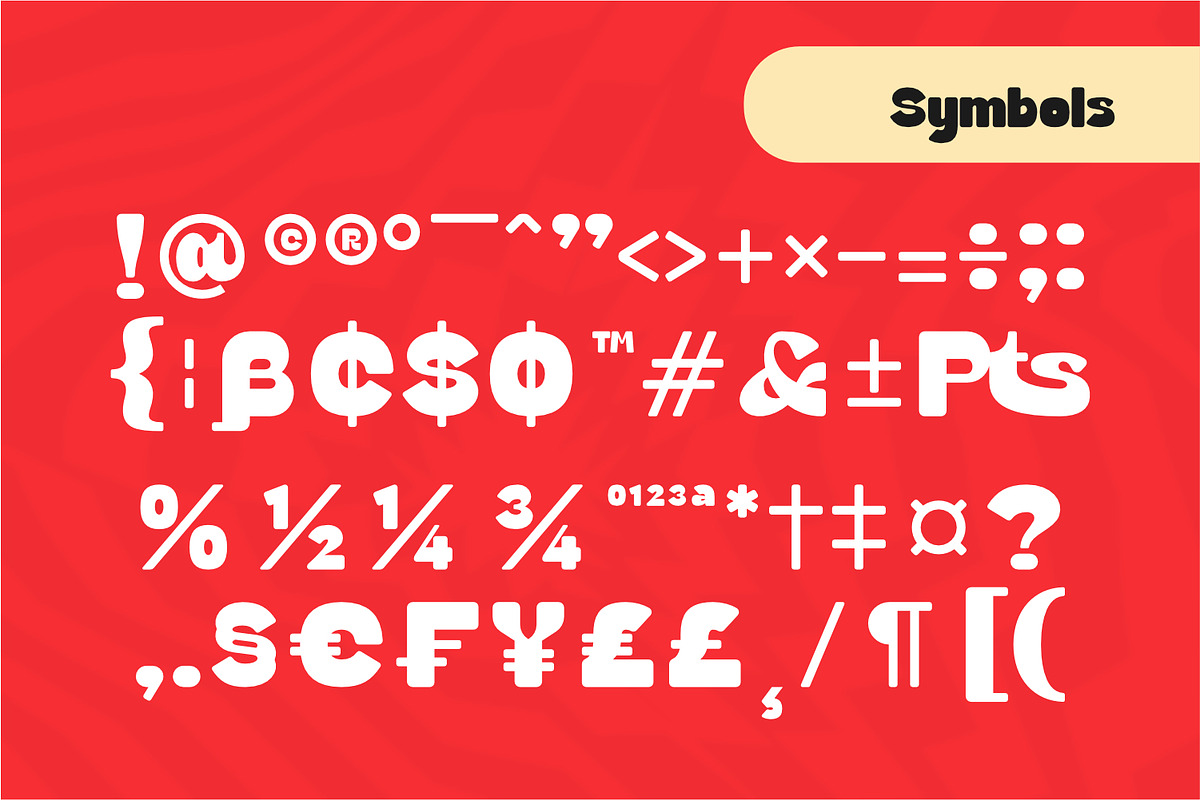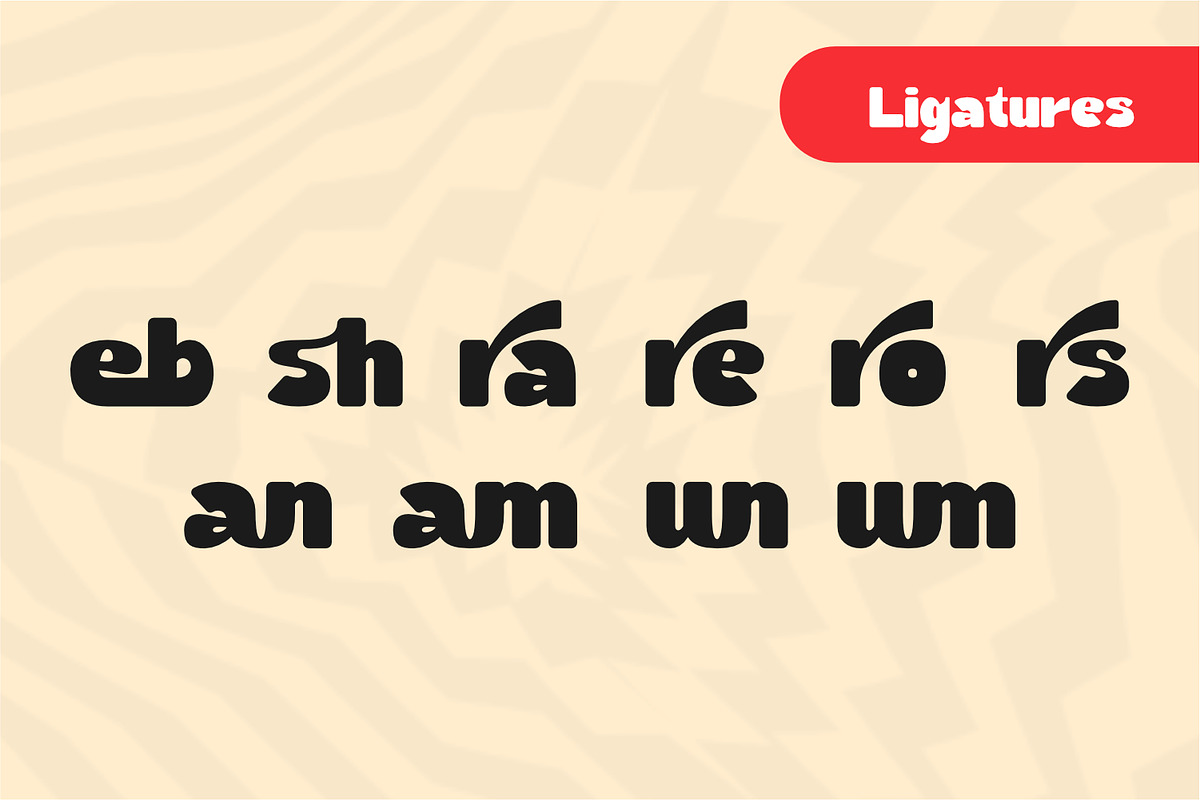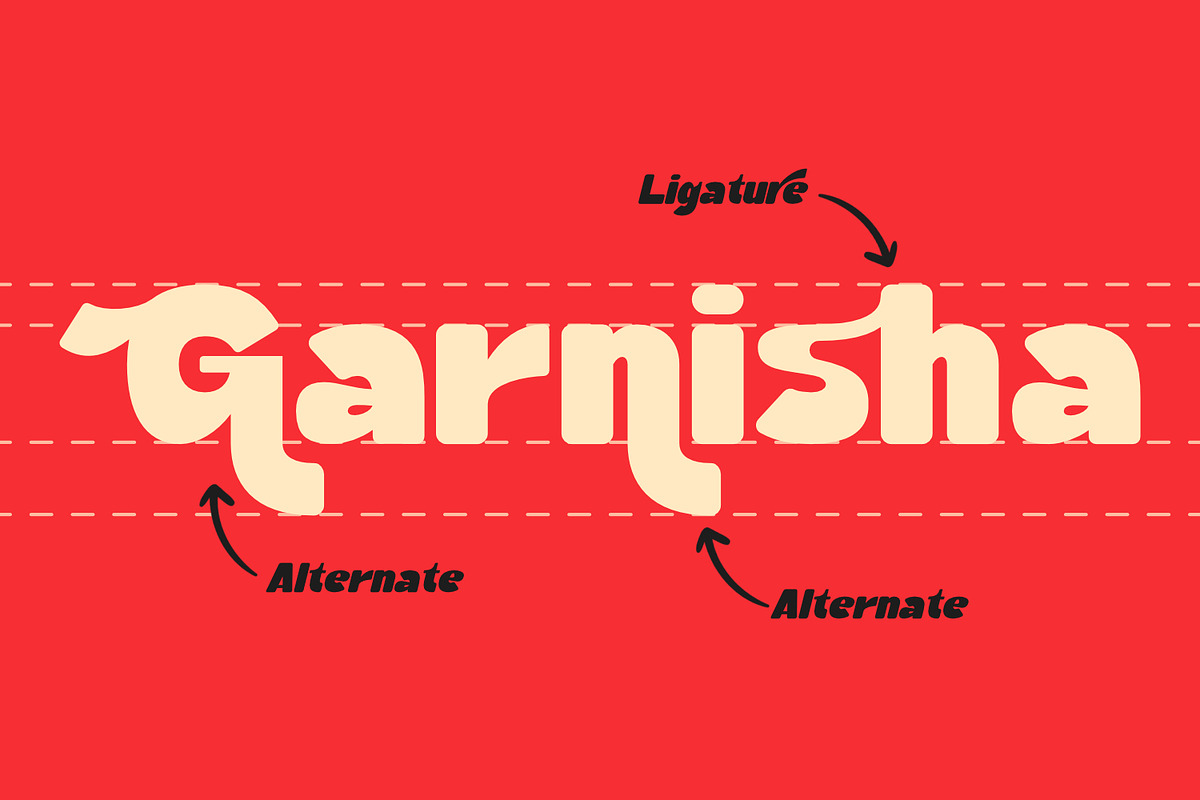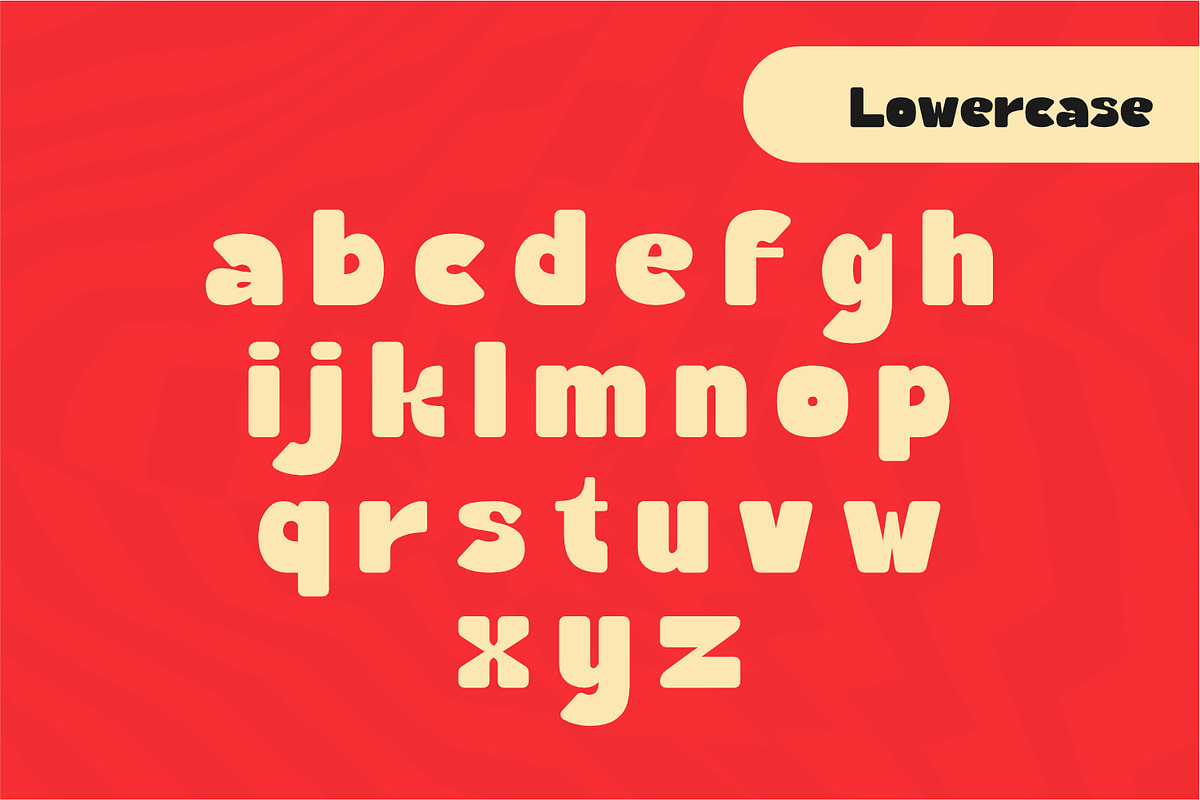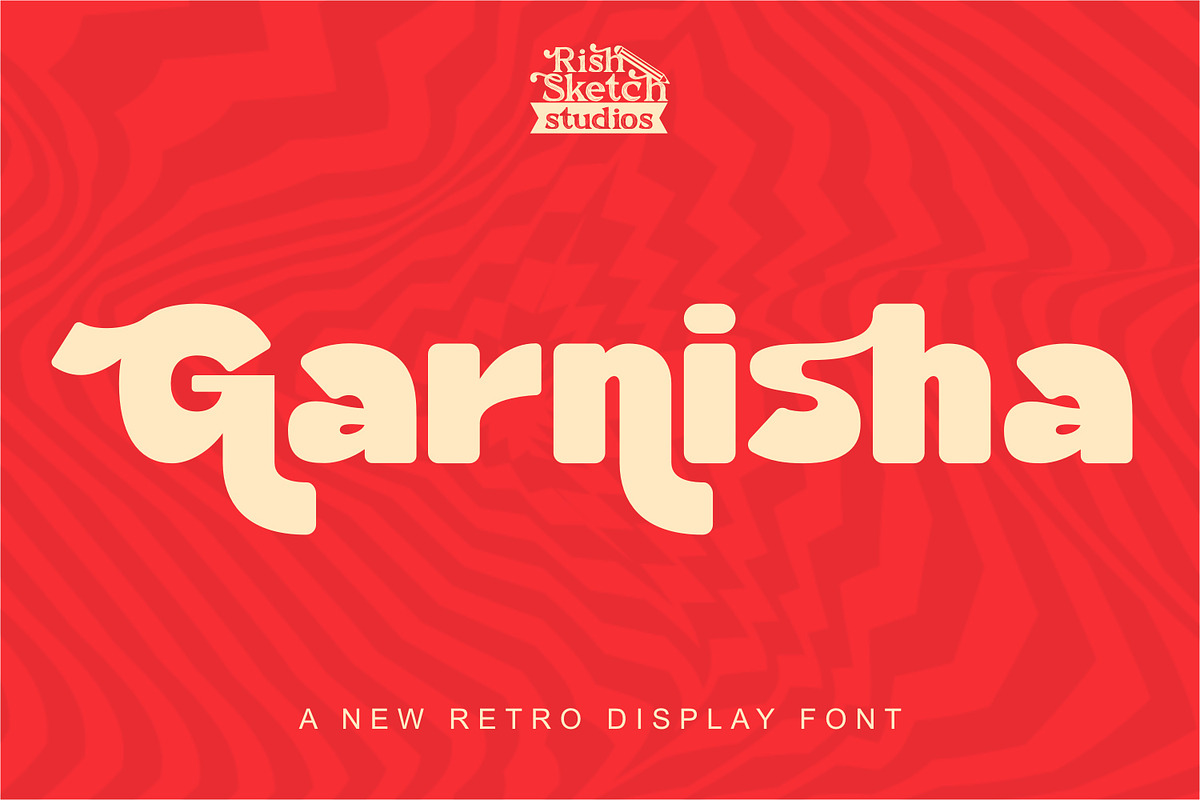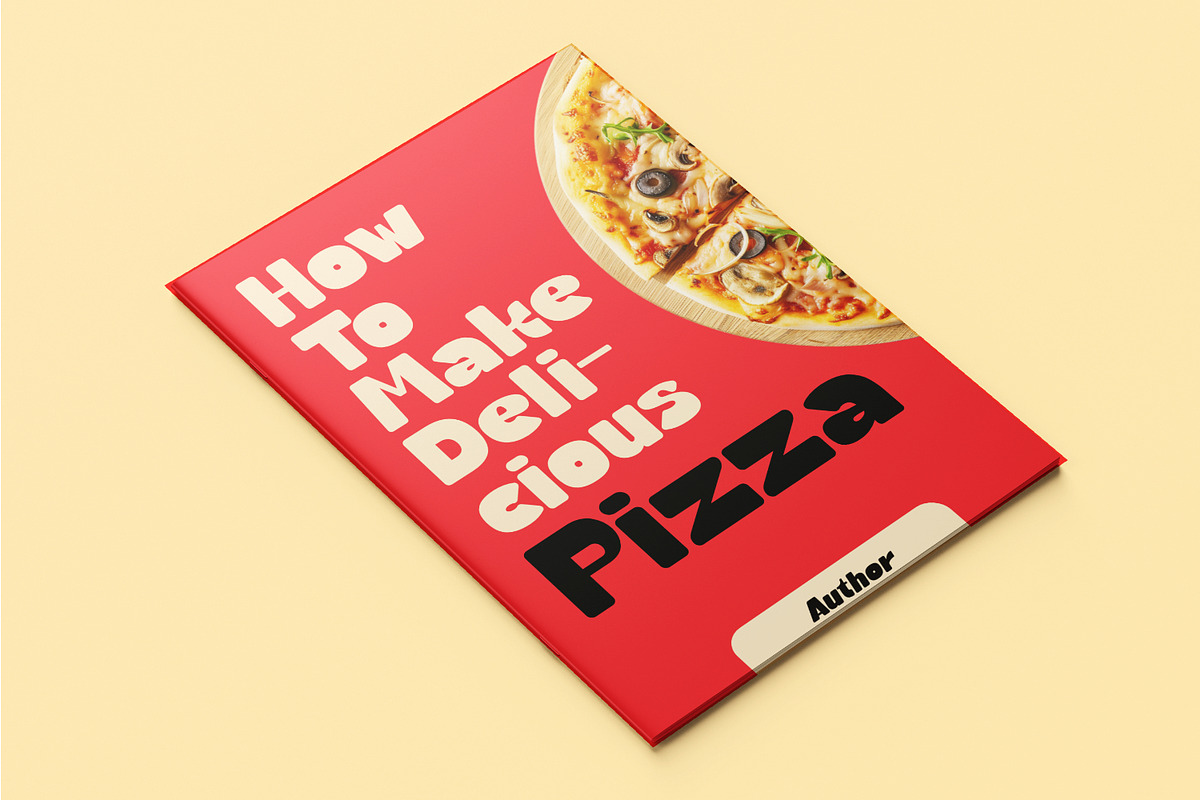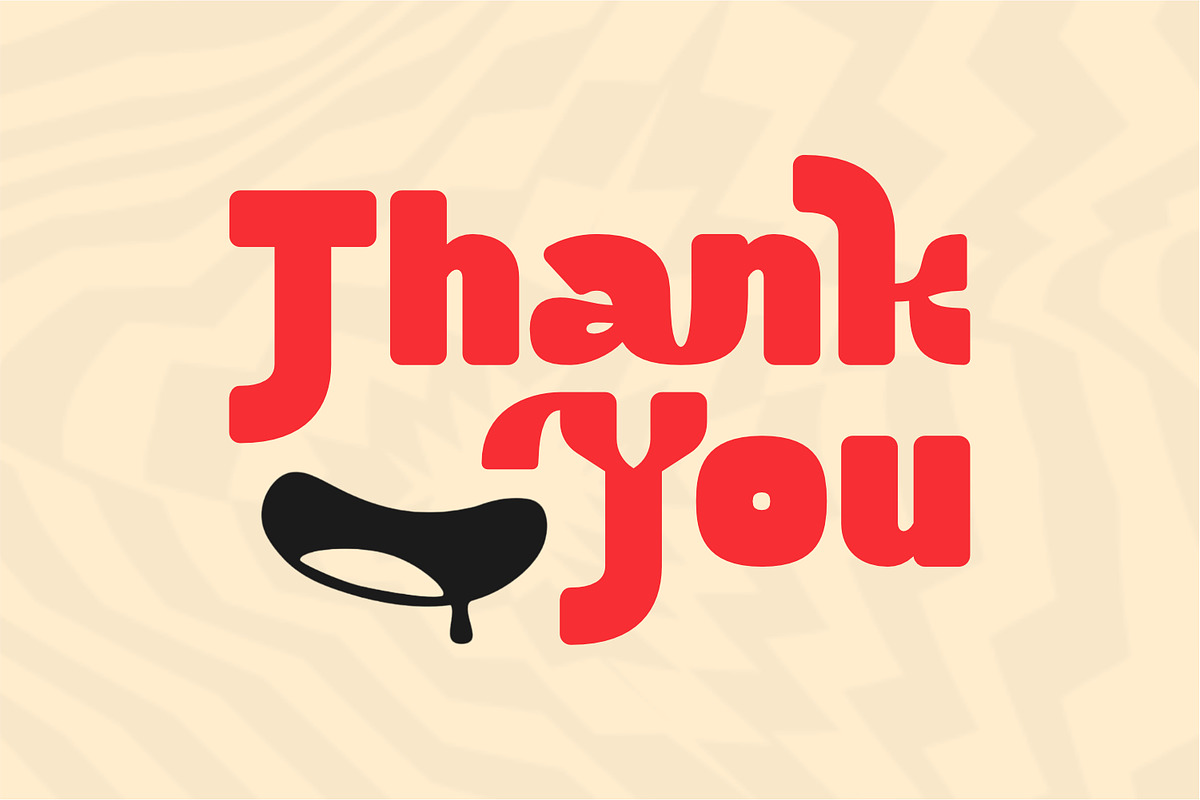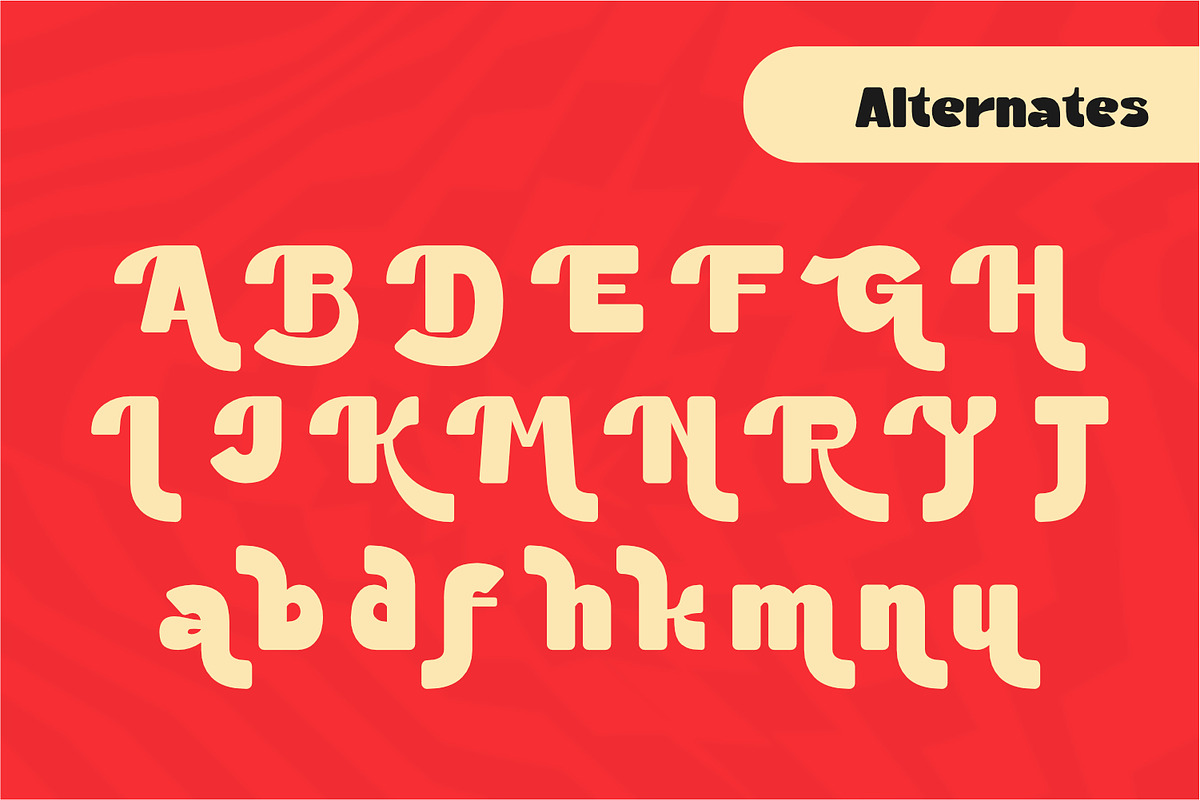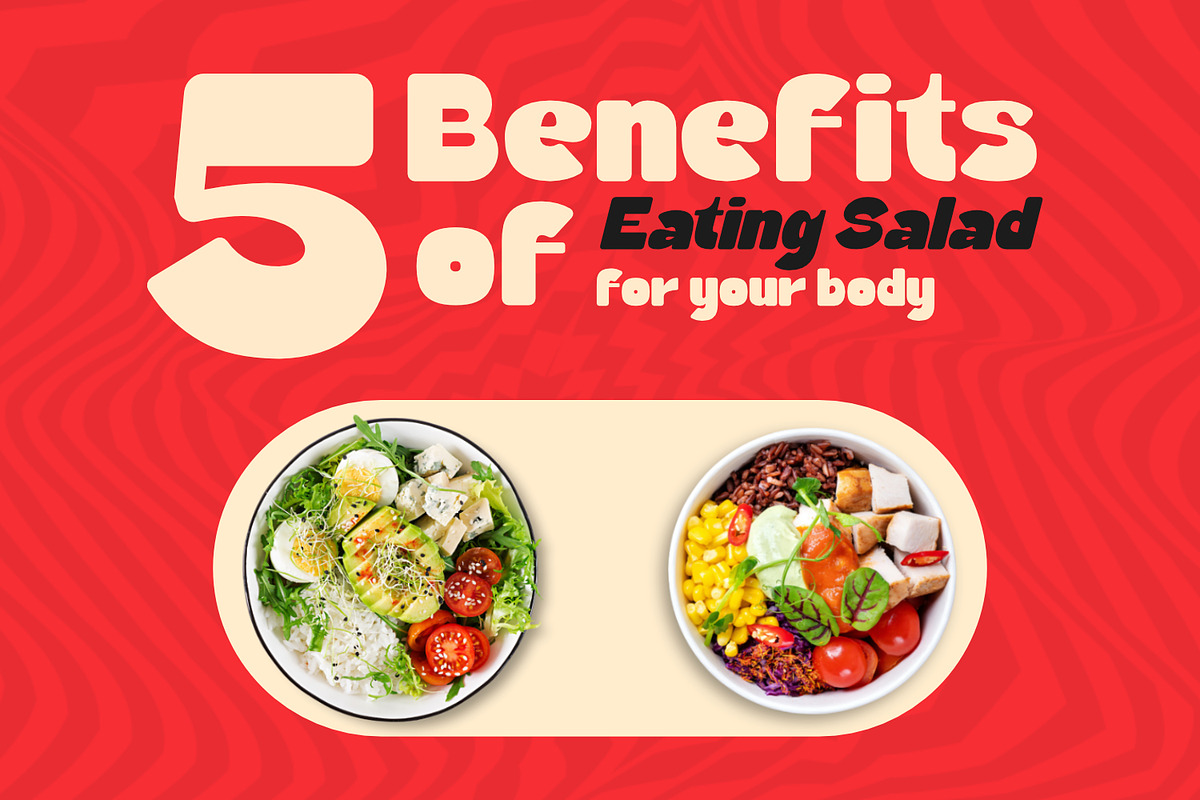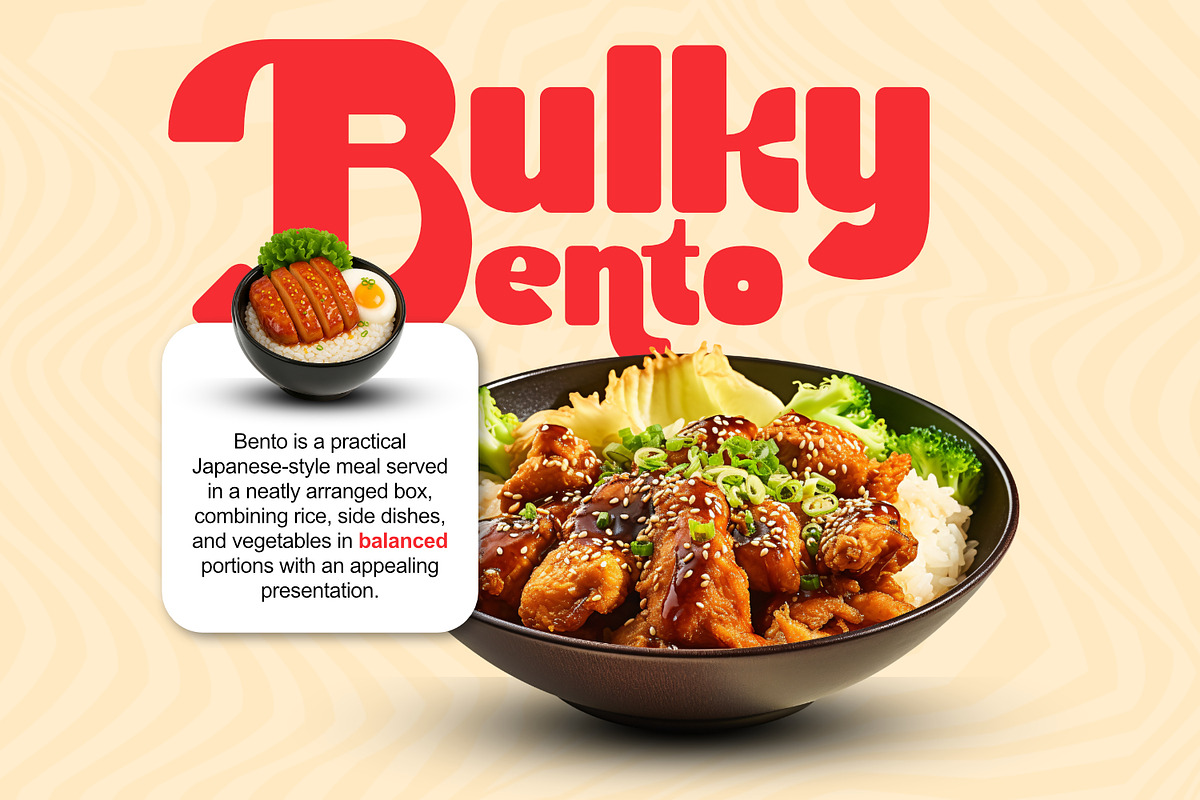
Garnisha - Retro Display Font
Garnisha - Retro Display Font, from Rishsketch Studios, is a premium Retro Display Font, perfect for any project that requires a distinctive, and premium feel.
Ligature, Alternate & Multilingual